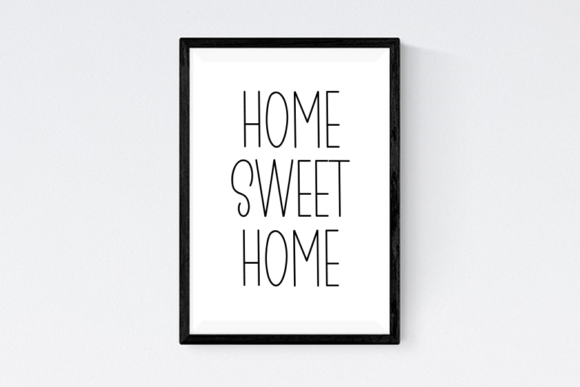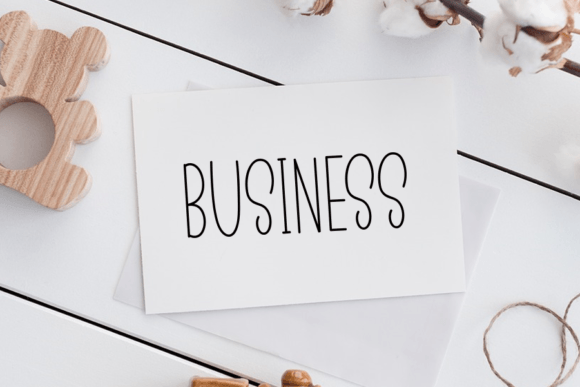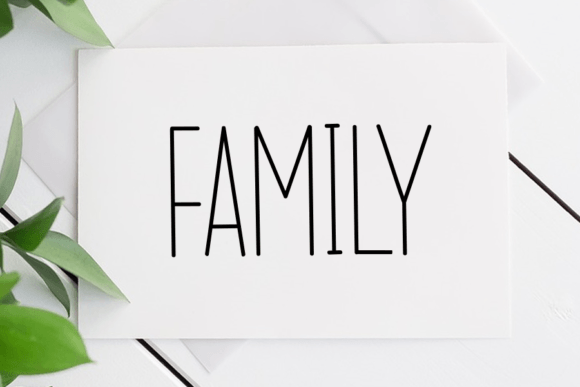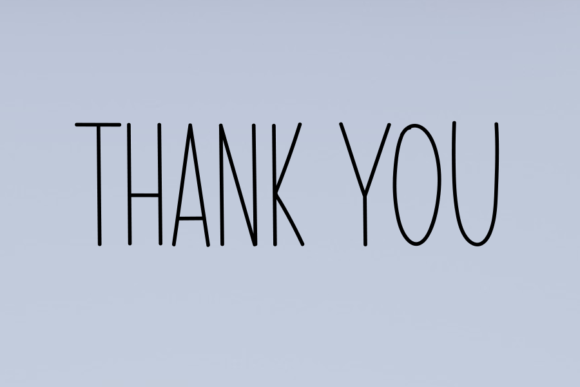
Introducing Farmhouse Minimalis Font: Elevate Your Design with Elegance
Are you a designer or crafter looking for a font that exudes luxury and sophistication? Look no further than Farmhouse Minimalis Font! This sweet and beautiful sans serif font is perfect for adding a touch of elegance to any design project. With its unique characters that dance along the baseline, Farmhouse Minimalis Font is sure to make your designs stand out from the crowd.
What Makes Farmhouse Minimalis Font Special?
Farmhouse Minimalis Font is a sans serif font that boasts a clean and minimalist aesthetic. Its sleek lines and curves make it perfect for designs that require a touch of sophistication. The font’s characters are carefully crafted to dance along the baseline, creating a sense of movement and fluidity. This unique feature sets Farmhouse Minimalis Font apart from other fonts and makes it a standout addition to any design project.
Perfect for Luxury Designs
Farmhouse Minimalis Font is designed to add a luxury spark to any design project. Its elegant and refined aesthetic makes it perfect for designs that require a touch of sophistication. Whether you’re working on a branding project, a website design, or a craft project, Farmhouse Minimalis Font is sure to elevate your design to the next level.
Versatile and Easy to Use
Farmhouse Minimalis Font is incredibly versatile and easy to use. Its clean and minimalist design makes it perfect for a wide range of design projects, from logos and branding to websites and crafts. The font is also easy to read and understand, making it perfect for designs that require clear communication.
Key Features of Farmhouse Minimalis Font
- Sweet and beautiful sans serif font
- Unique characters that dance along the baseline
- Clean and minimalist aesthetic
- Perfect for luxury designs
- Elegant and refined aesthetic
Tips and Tricks for Getting the Most Out of Farmhouse Minimalis Font
- Use Farmhouse Minimalis Font as a headline font to add a touch of elegance to your design
- Experiment with different font sizes and colors to create visual interest
- Pair Farmhouse Minimalis Font with other fonts to create a unique and interesting contrast
- Use Farmhouse Minimalis Font in your branding and marketing materials to create a cohesive and sophisticated look
Farmhouse Minimalis Font is a beautiful and elegant sans serif font that is perfect for designers and crafters looking to add a touch of luxury to their designs. With its unique characters that dance along the baseline, Farmhouse Minimalis Font is sure to make your designs stand out from the crowd. Whether you’re working on a branding project, a website design, or a craft project, Farmhouse Minimalis Font is the perfect choice.